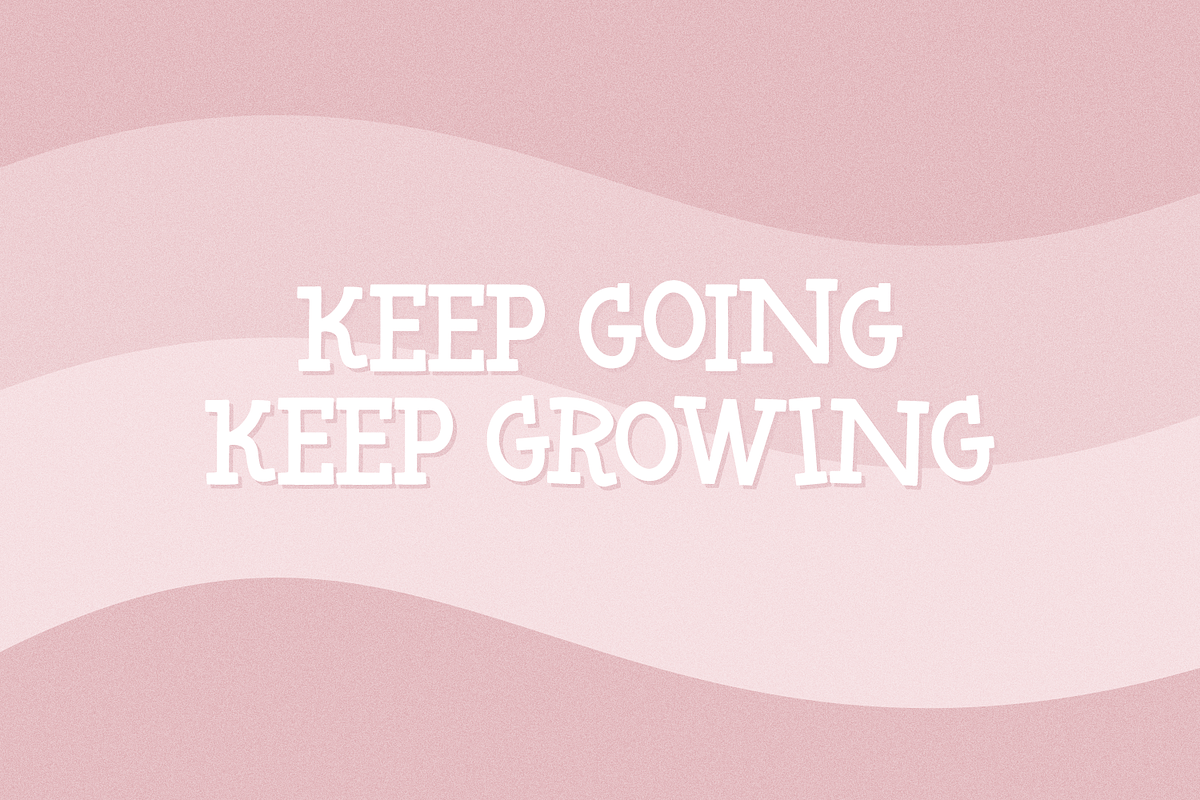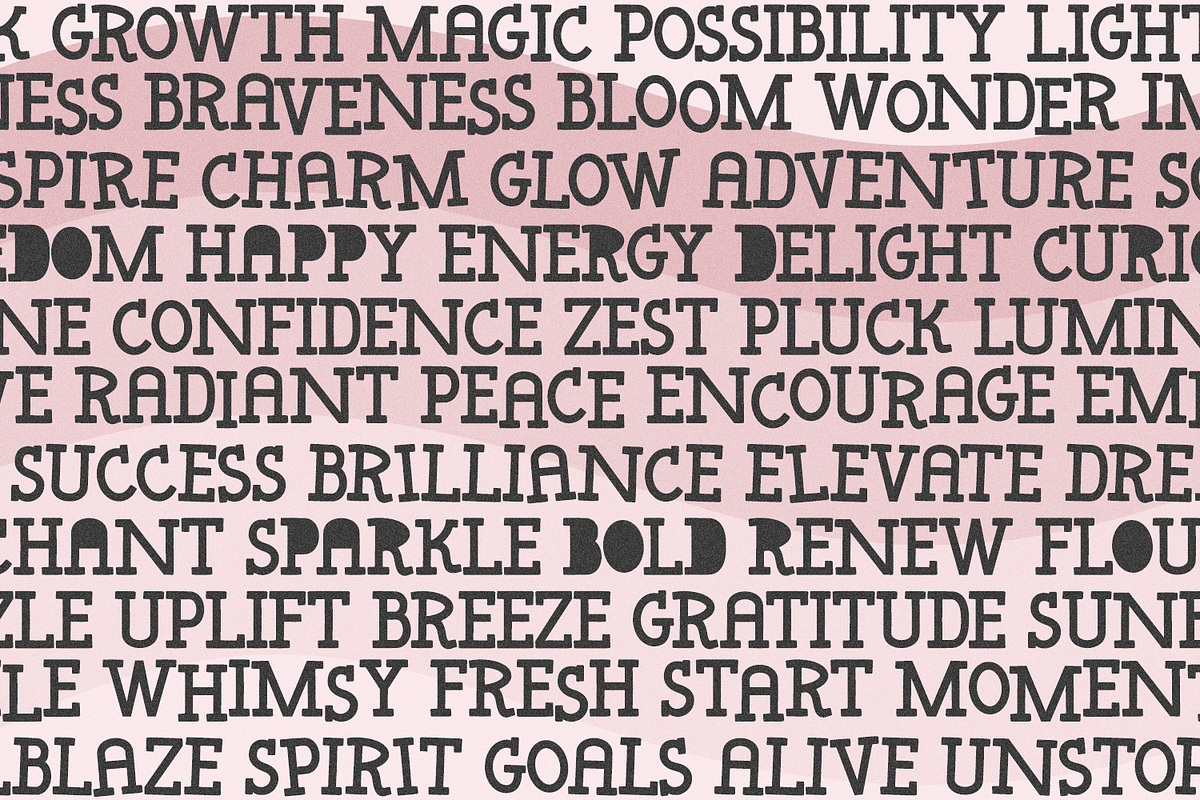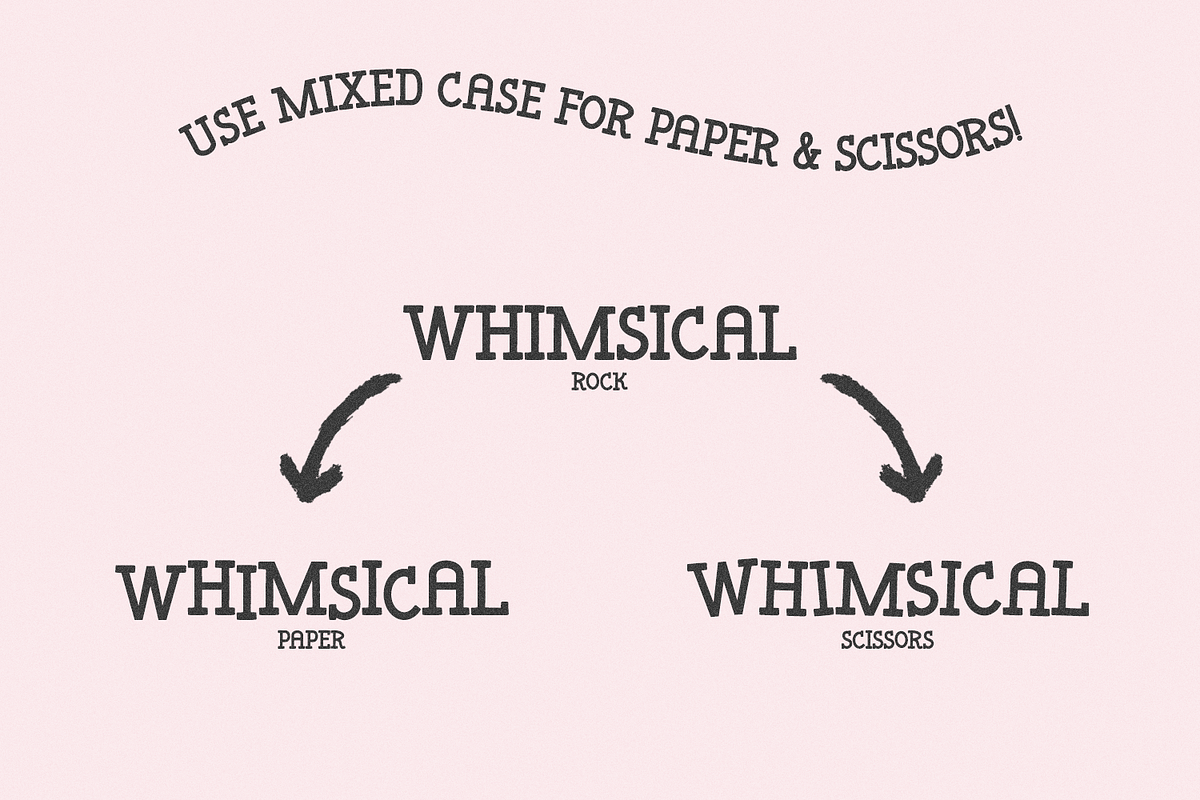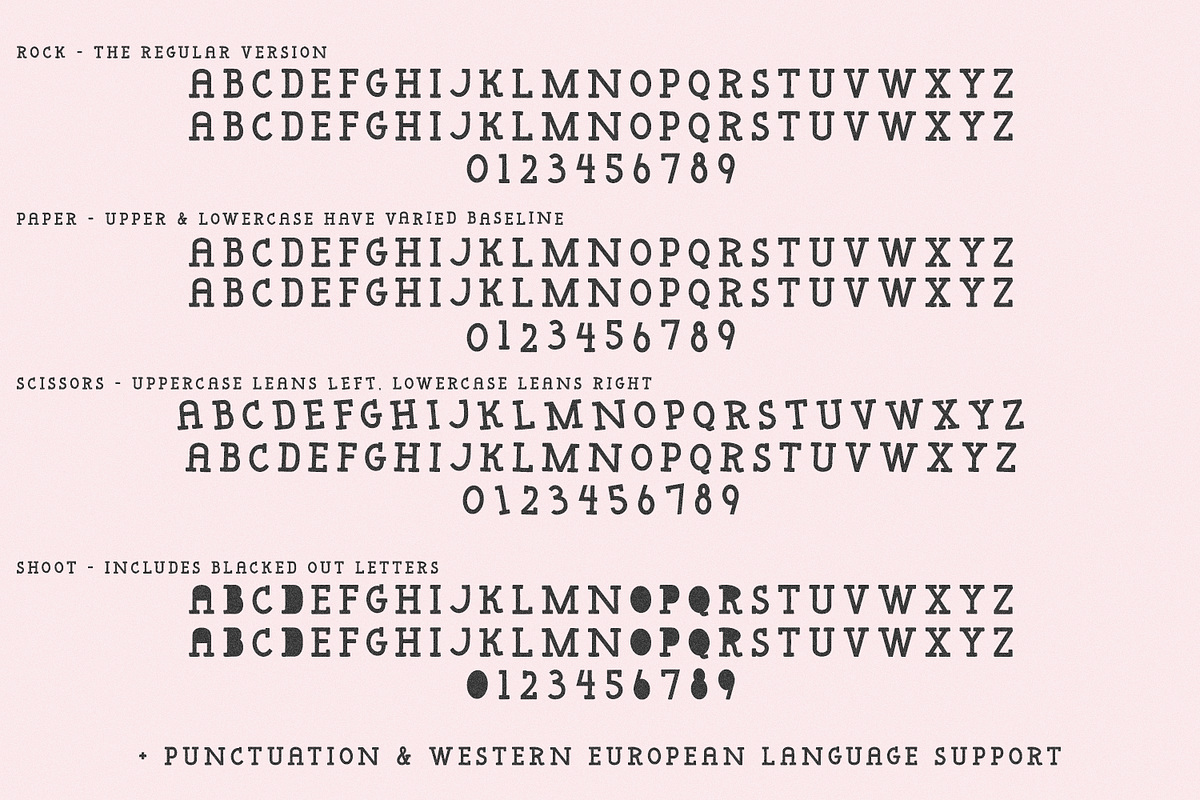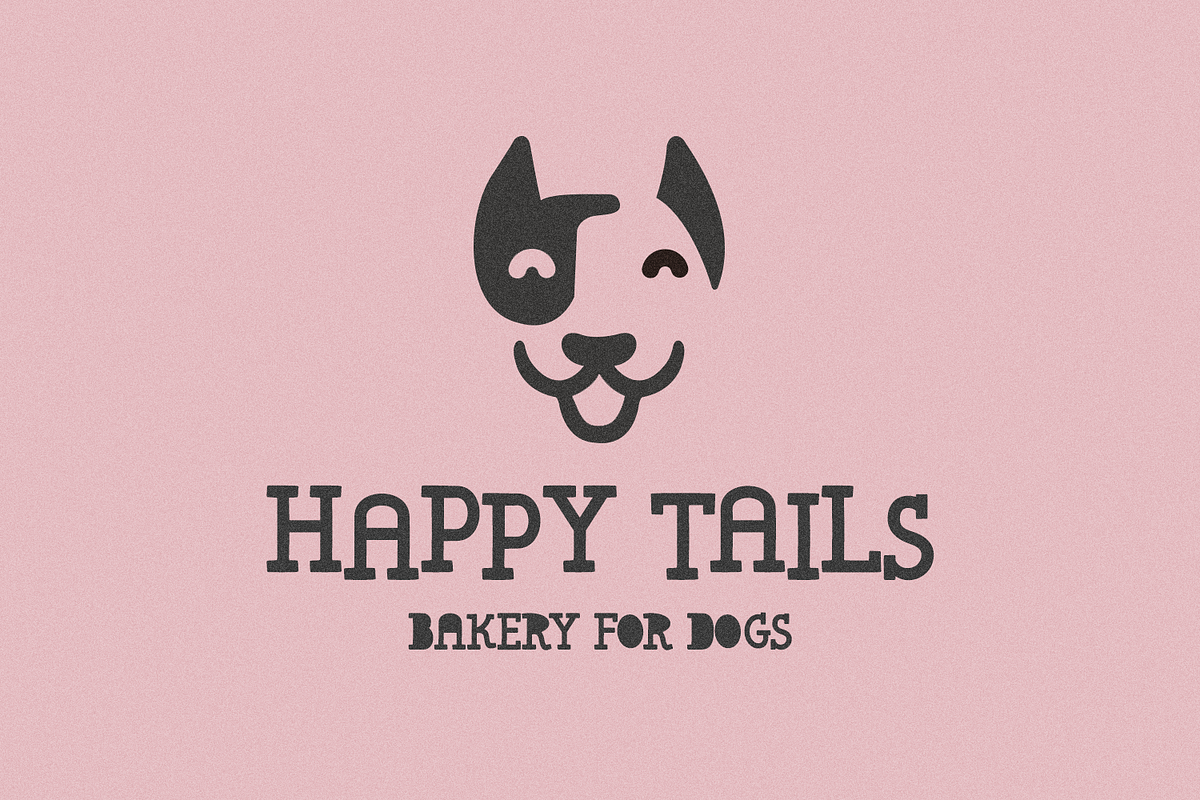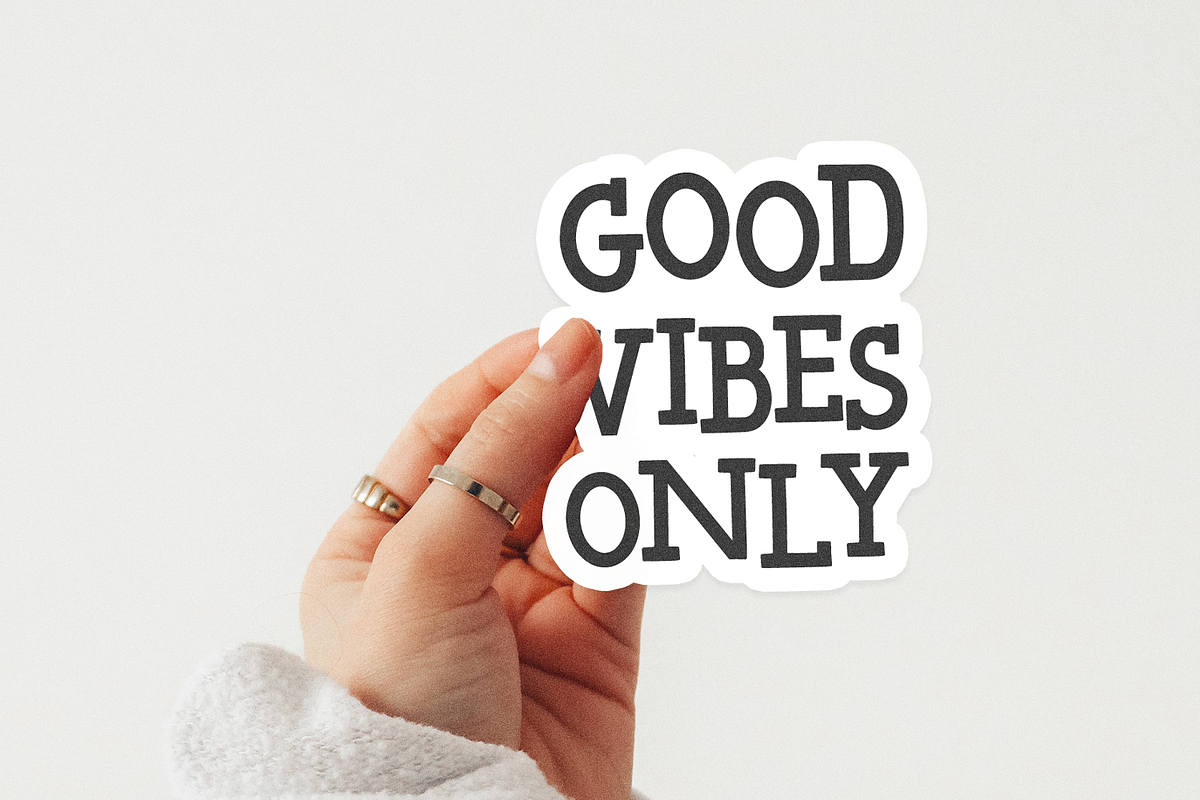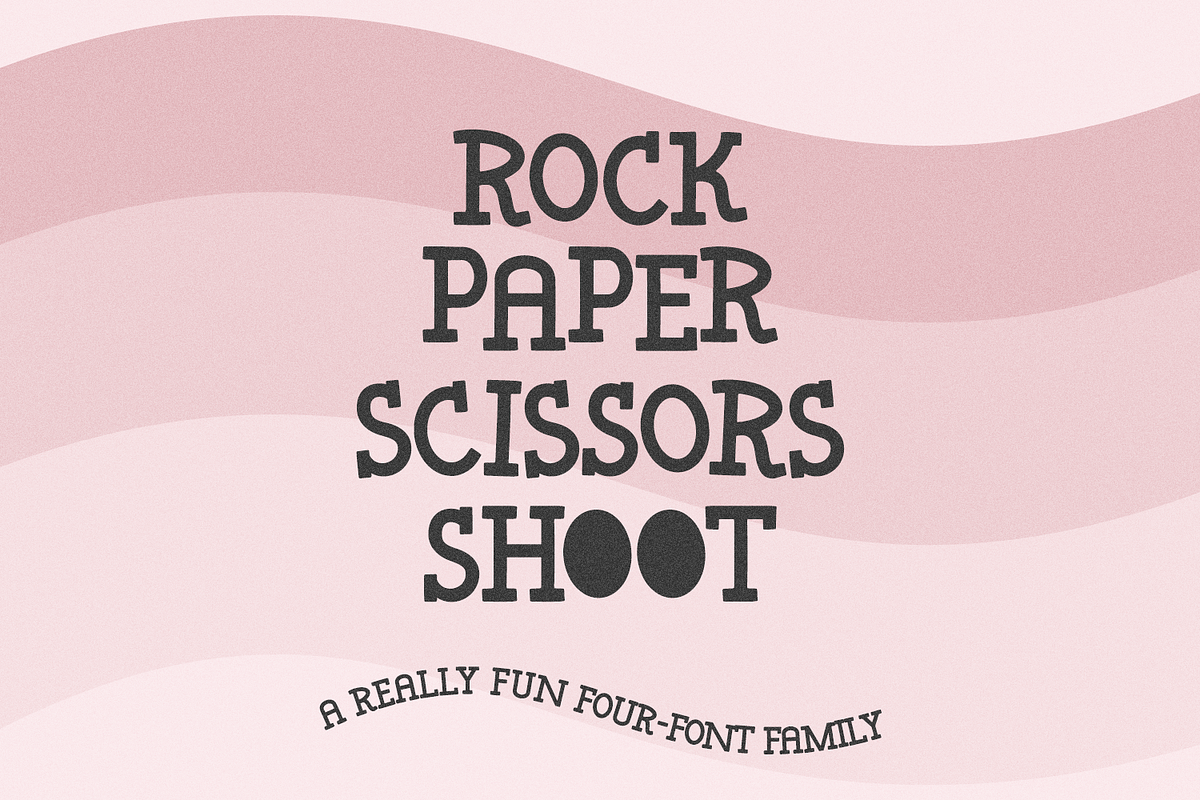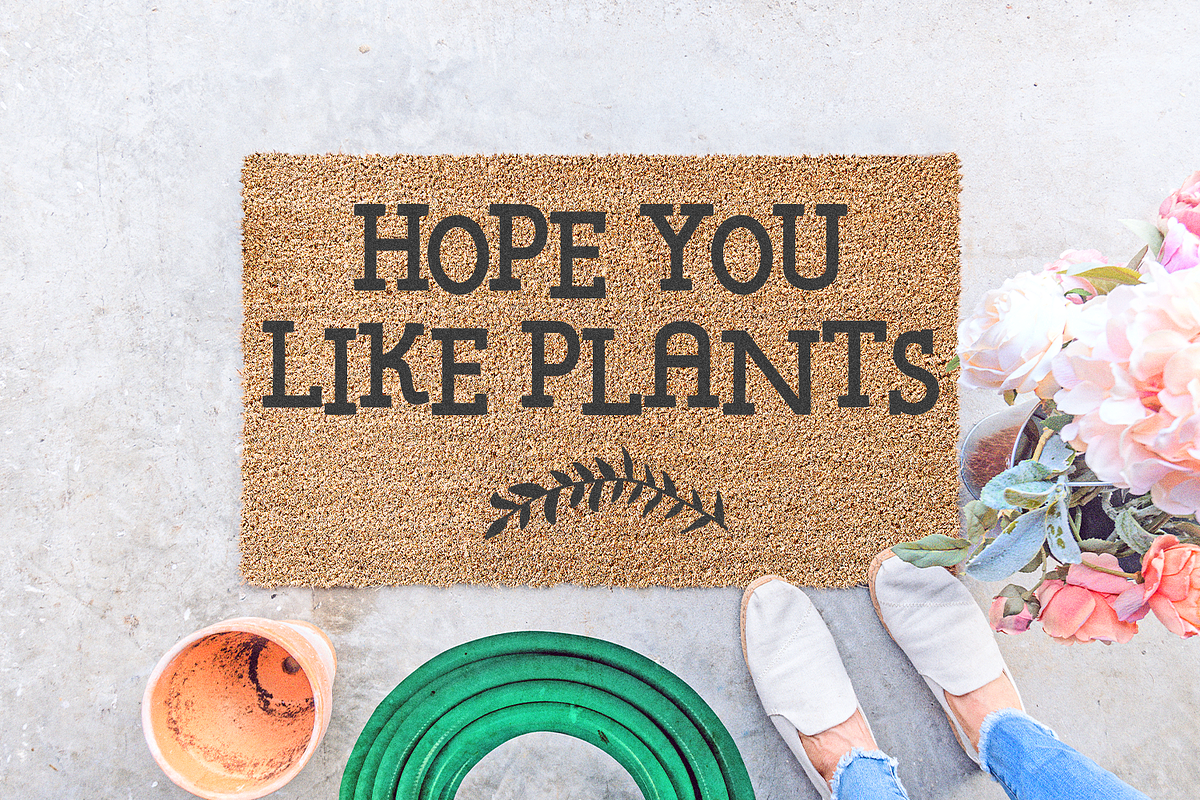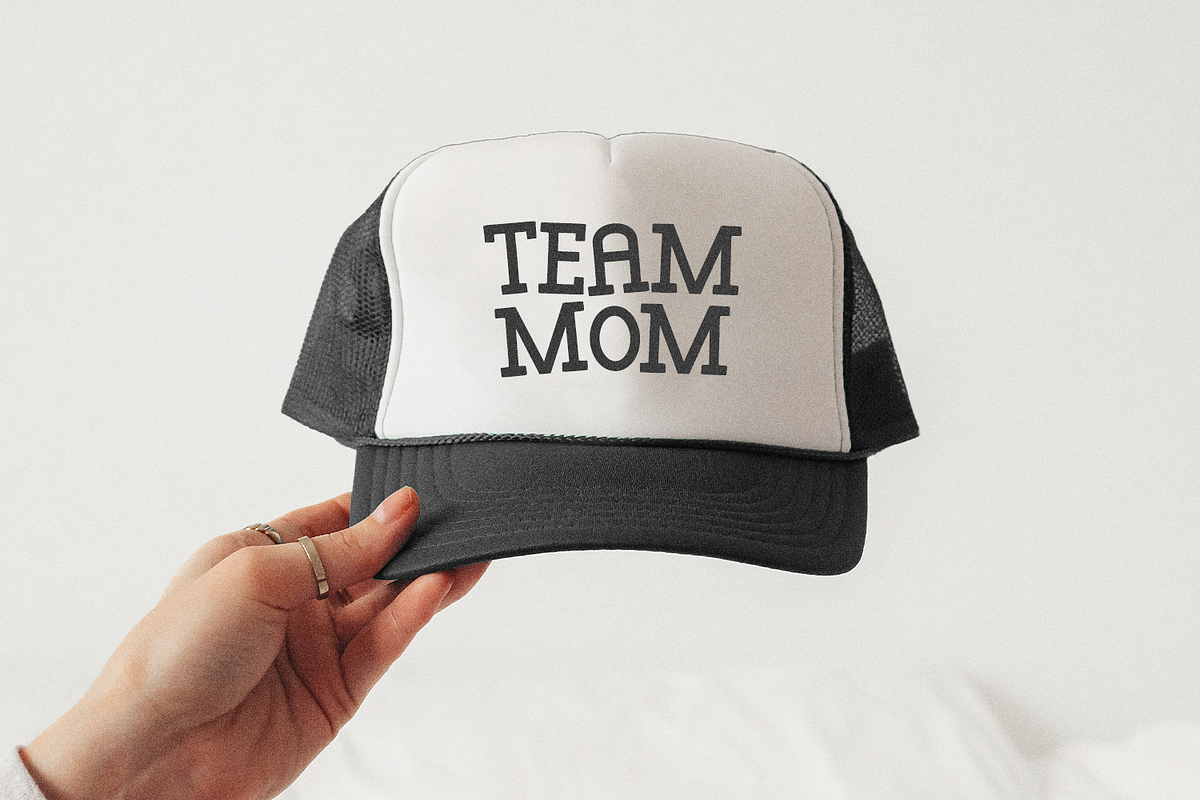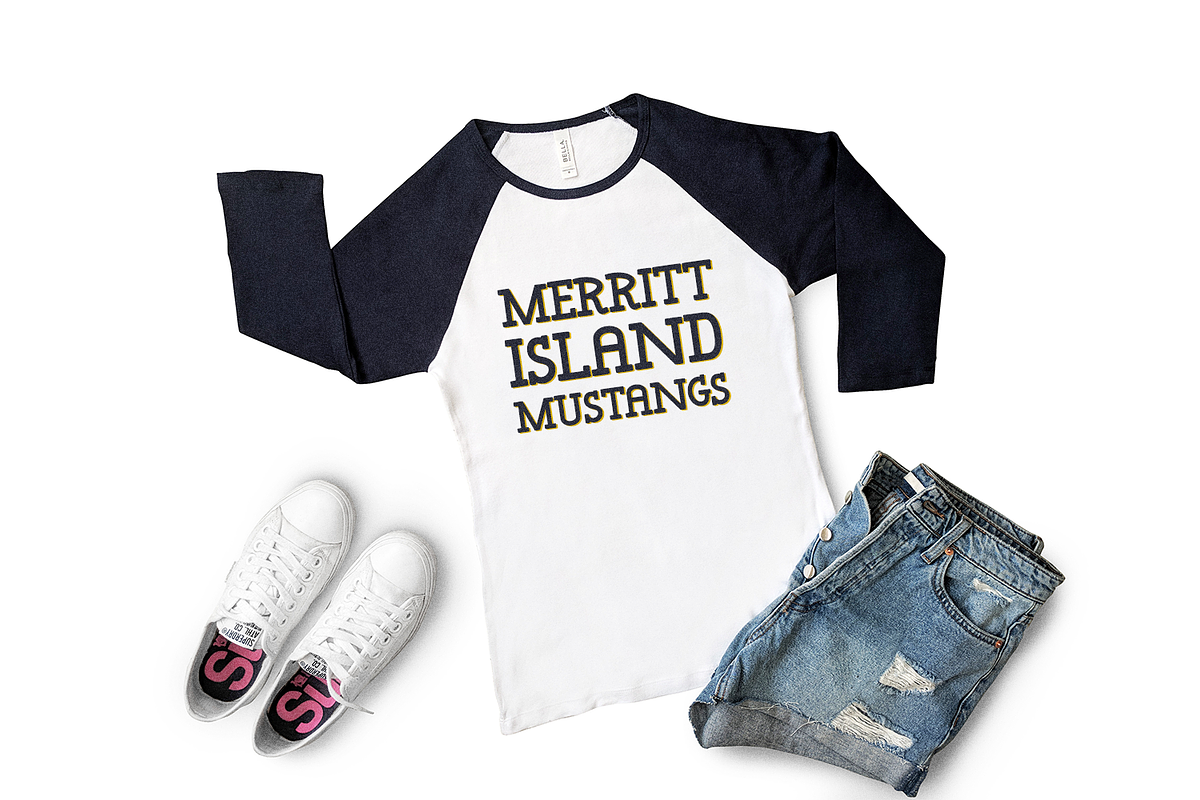
Rock Paper Scissors Shoot Serif
Rock Paper Scissors Shoot is a four font serif family with a whimsical and playful feel. This family has the perfect amount of handwritten charm. Use this family for logos & branding, greeting cards, painted banners, digital planners, note-taking apps, Canva, Cricut projects, Silhouette projects, designing SVG files, laser cutting projects, & more.
Rock is the regular version. Paper has a varied baseline; use mixed case for a playful bouncy effect. Scissors is a whimsically wobbly; use mixed case for this version to enhance the shaking effect. Shoot has a normal baseline just like the Rock version, but includes totally solid letters as a fun feature.
All versions of Rock Paper Scissors Shoot include:
- full uppercase characters in A-Z and a-z
- numbers + punctuation
- PUA-encoding
- Western European language support - English, French, Spanish, Portuguese (Brazil), Portuguese (Portugal), Italian, German (Germany), German (Austria), Dutch, Danish, Swedish, Norwegian (Bokmål and Nynorsk), Finnish, Icelandic, Irish, Welsh